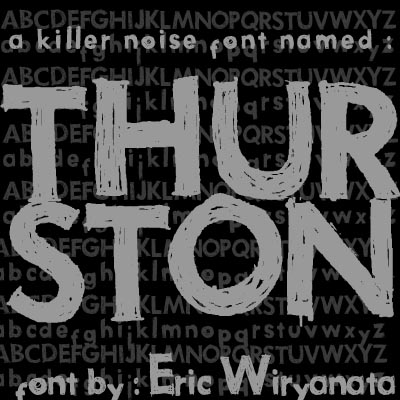
Thurston the Font
This Font created using Font Creator Program 3
By Eric Wiryanata. oCTOBER 2006.
the name Thurston was taken after Thurston Moore.
But the design didn'tcame from any of Thurston Moore related, I just thought that the name would fit the font nicely
The font was sketched using the Futura font as inspiration.
I embed some illustration in the font.
Note#2: This typeface is ideal for logos and general design.
It isn't very suitable to be used with word-processors as it lacks some symbols and letters.